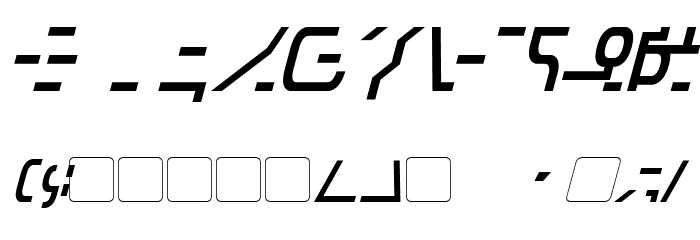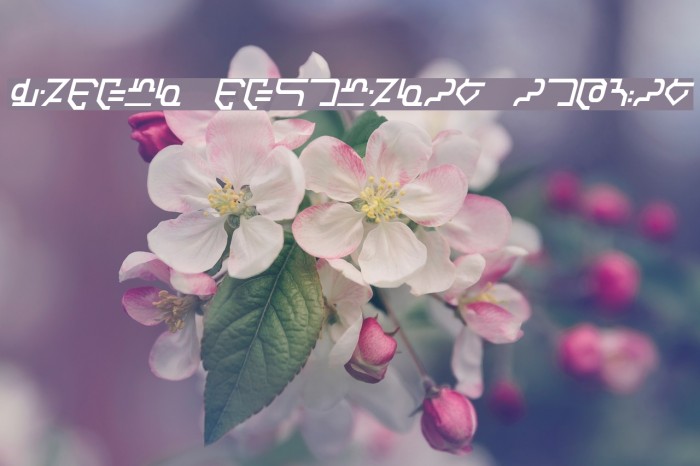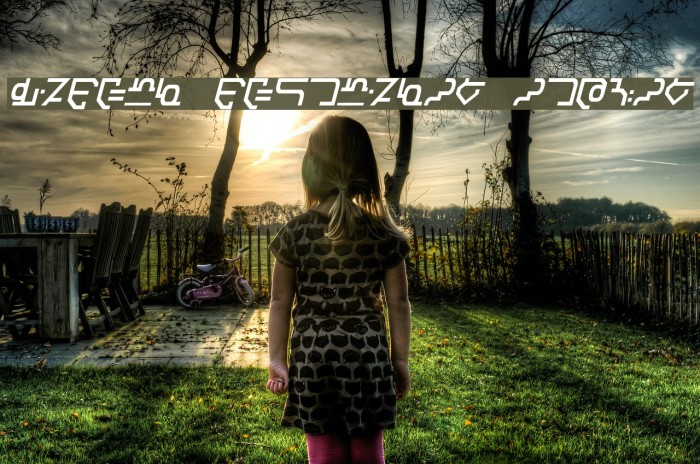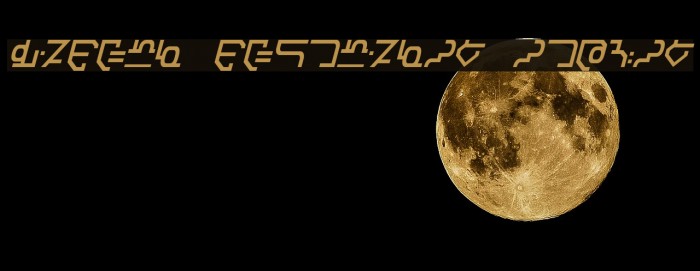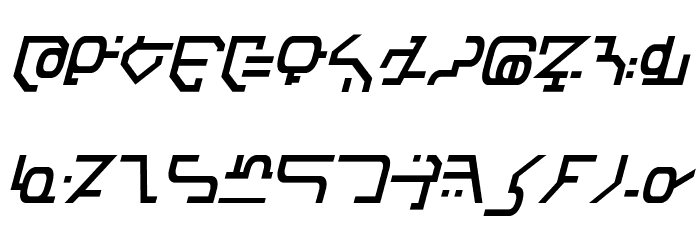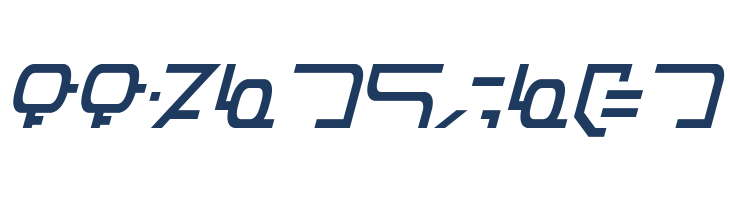
Modern Destronic Italic Font
This font features a futuristic and angular design, characterized by sharp edges and geometric shapes. The letters are stylized with a distinct italic slant, giving a sense of motion and modernity. The uppercase and lowercase letters maintain a consistent style, with unique forms that deviate from traditional letter shapes. The numerals and special characters are crafted to match the overall aesthetic, ensuring a cohesive look across all glyphs. The font's design is bold and eye-catching, making it suitable for projects that require a contemporary and tech-inspired appearance.
A futuristic, angular italic font with a modern, tech-inspired style.
• Proposed Projects: Ideal for sci-fi themed designs, technology branding, video game interfaces, and futuristic posters.